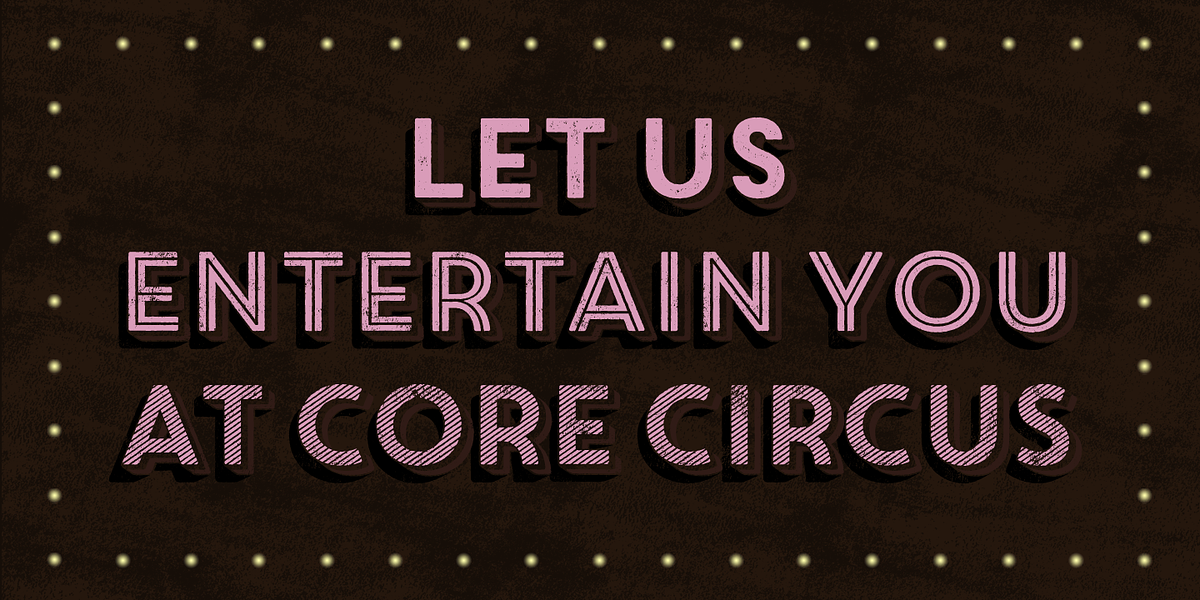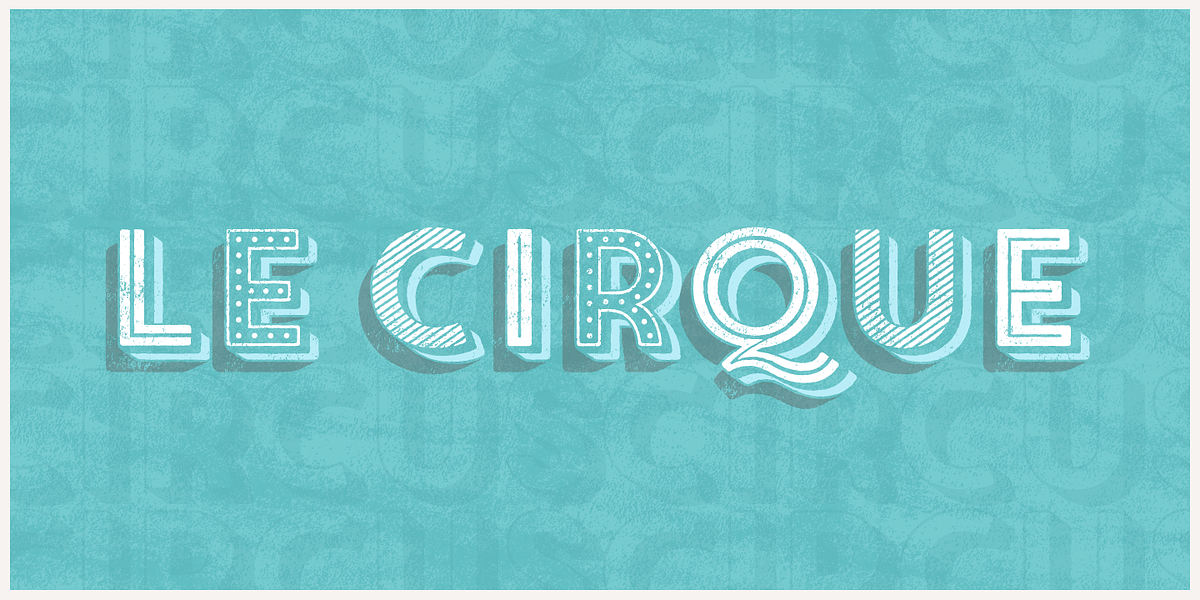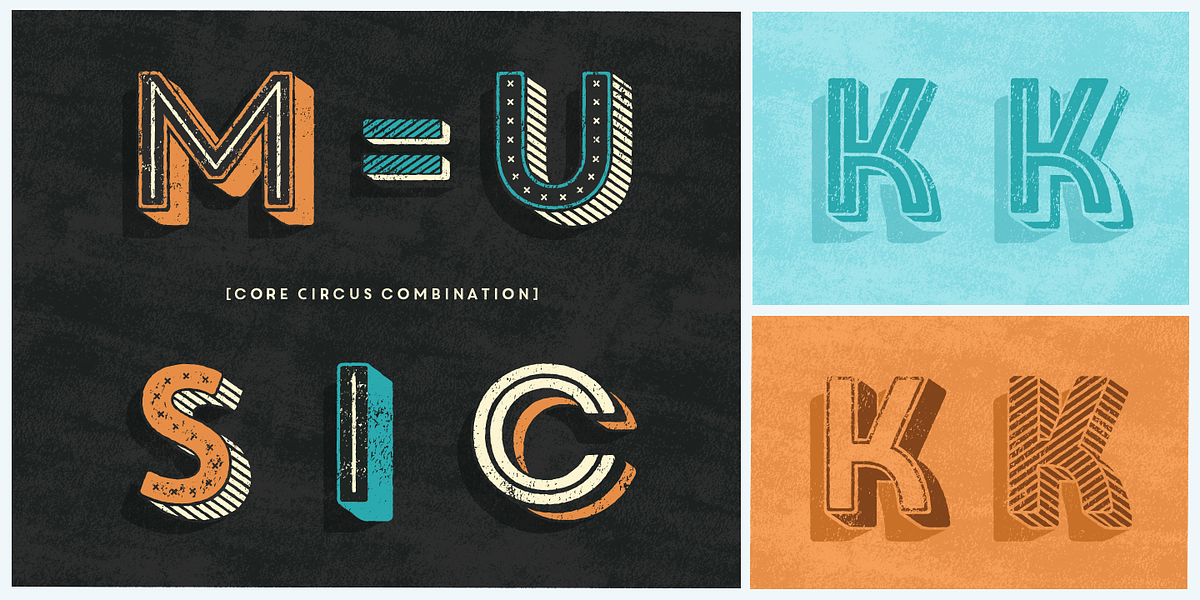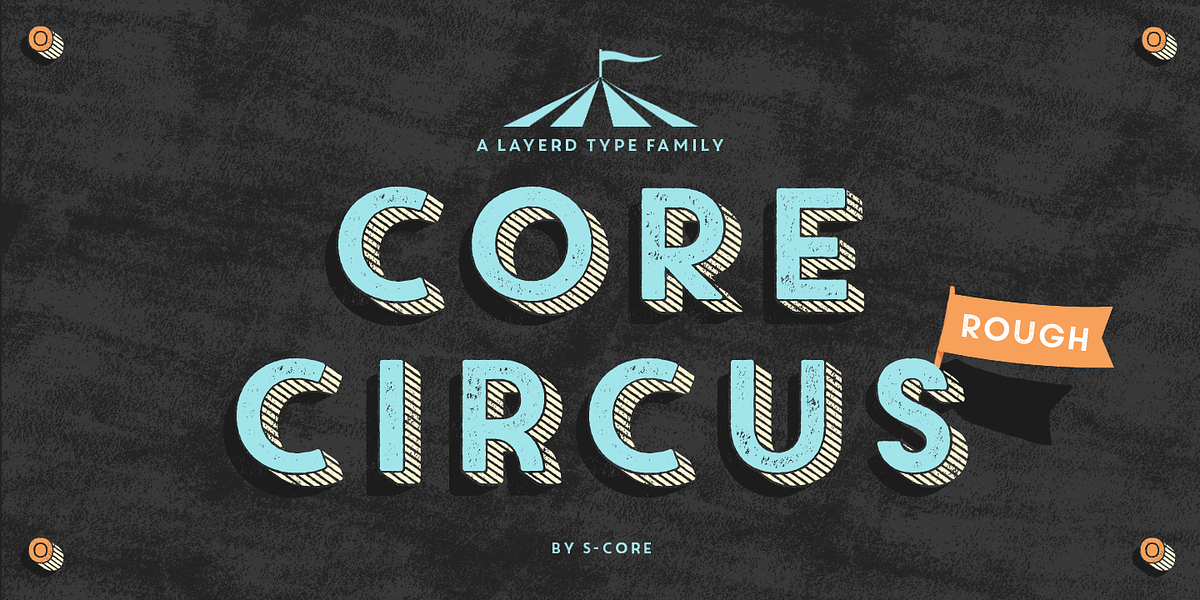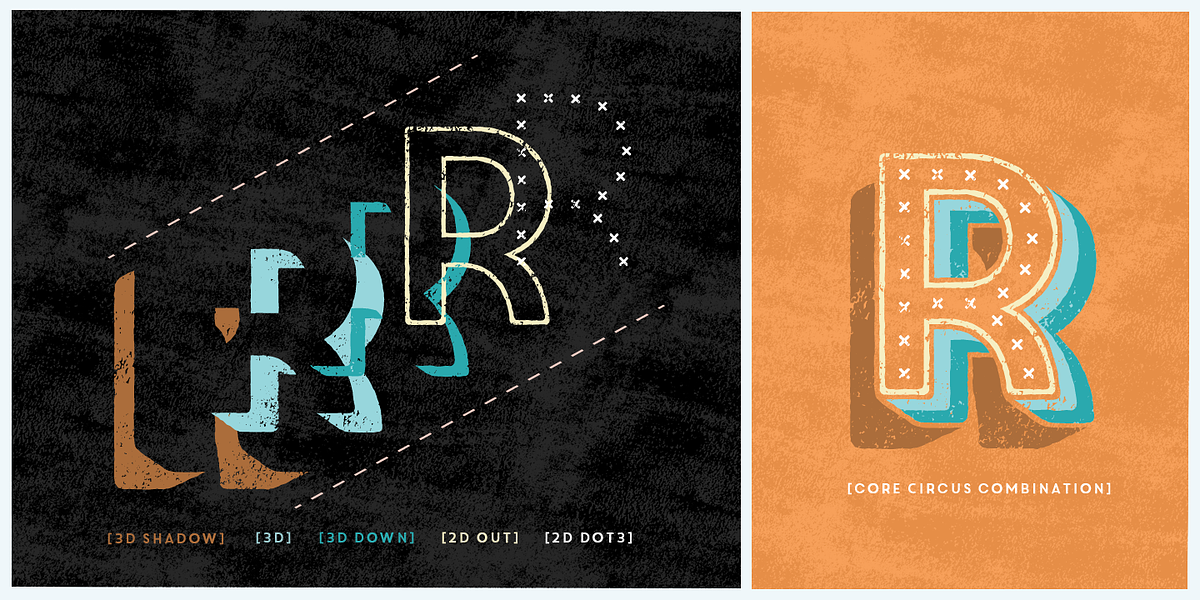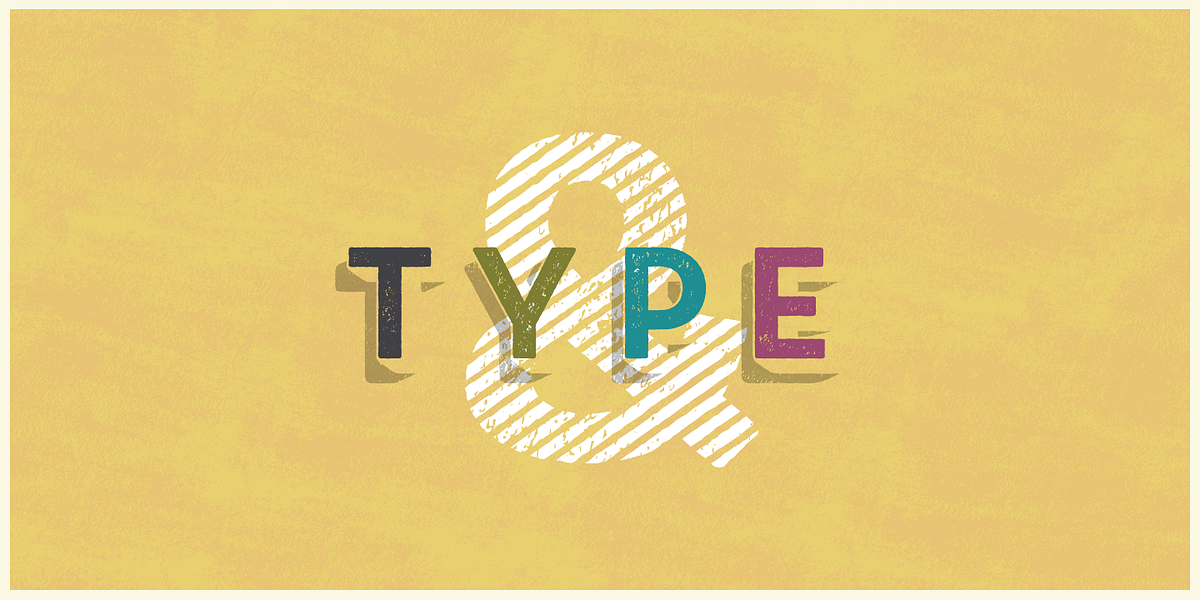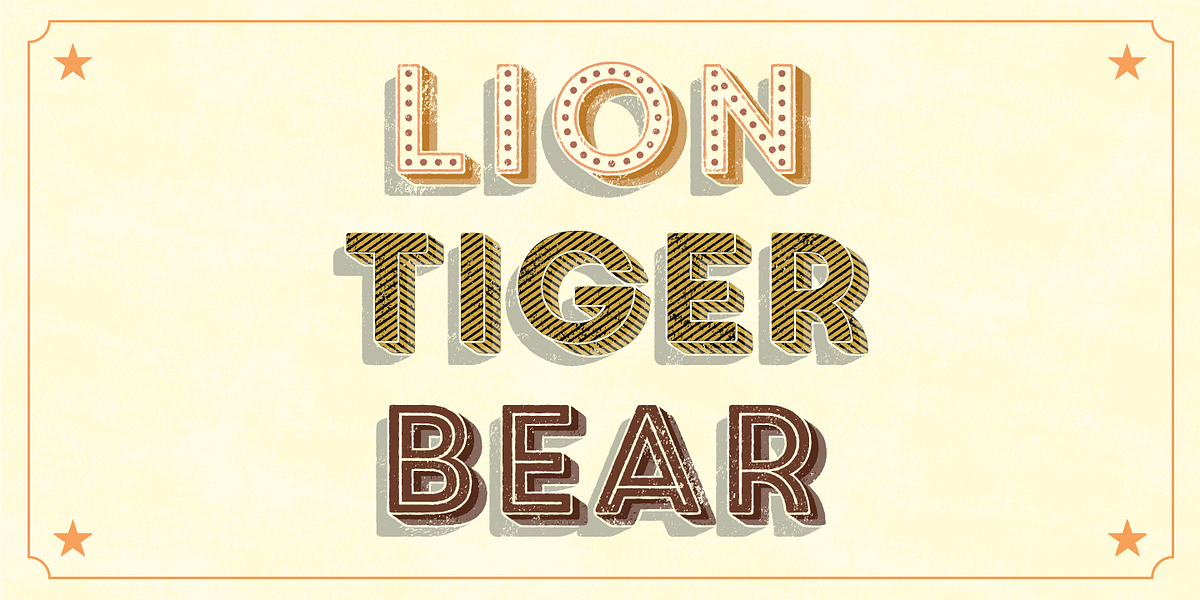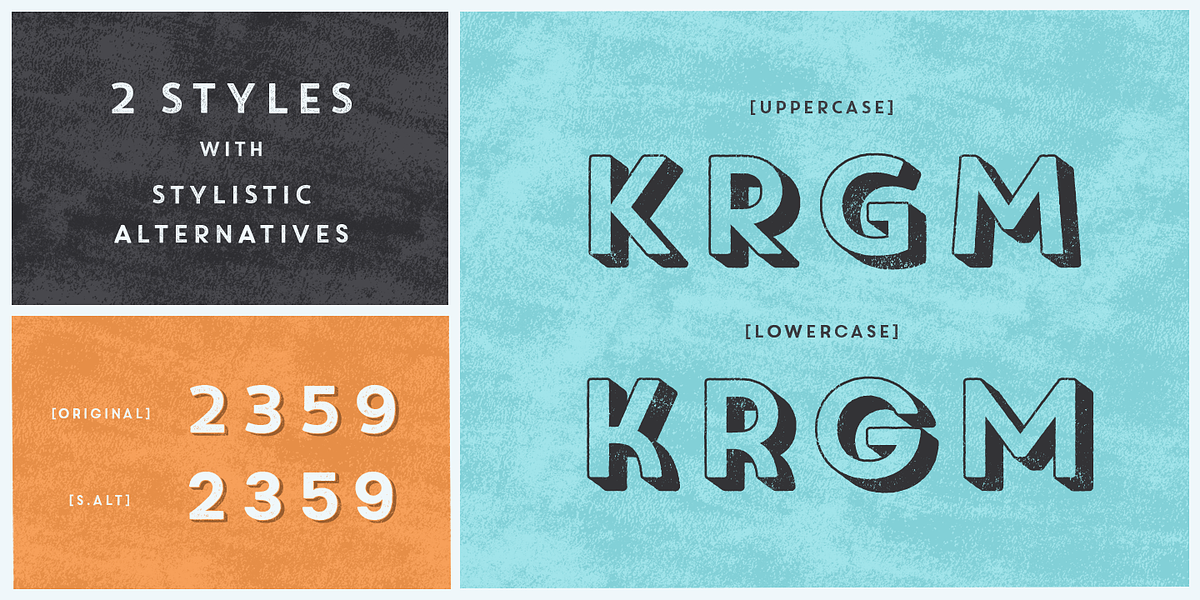
Core Circus Rough
Core Circus Rough is a geometric display font characterized by its textured appearance and layered construction. It offers a wide range of stylistic possibilities through the combination of different 3D, 2D effect, and shadow layers. The font's unique design features include separated uppercase and lowercase letters with open or closed counters, as well as alternative closed counter styles for numbers accessible through OpenType Stylistic Alternatives.